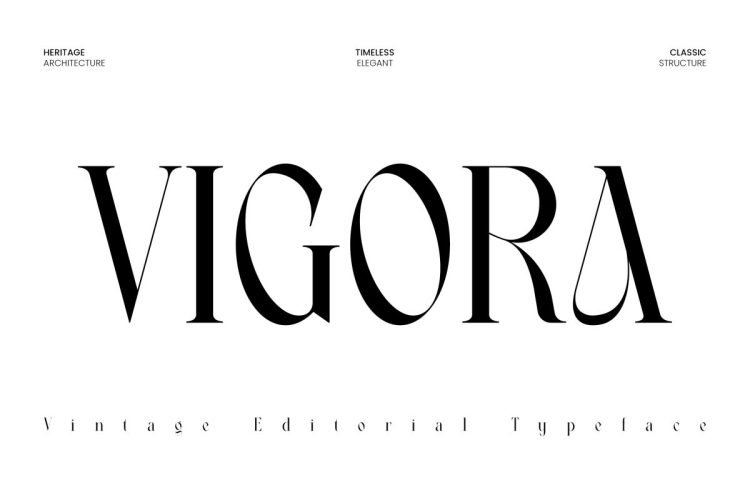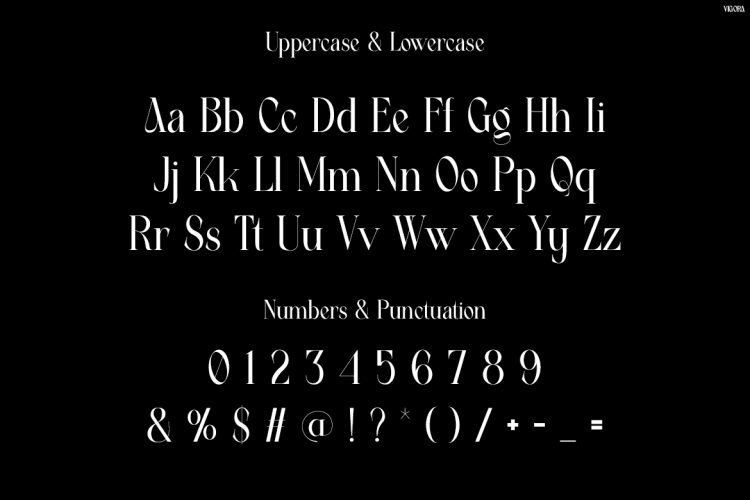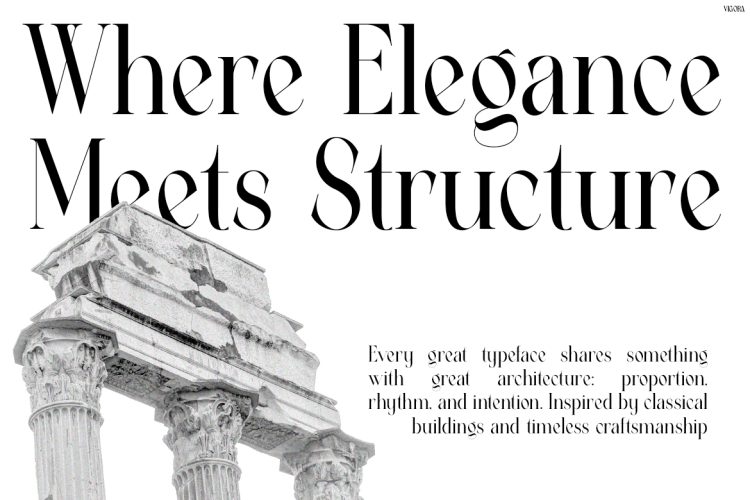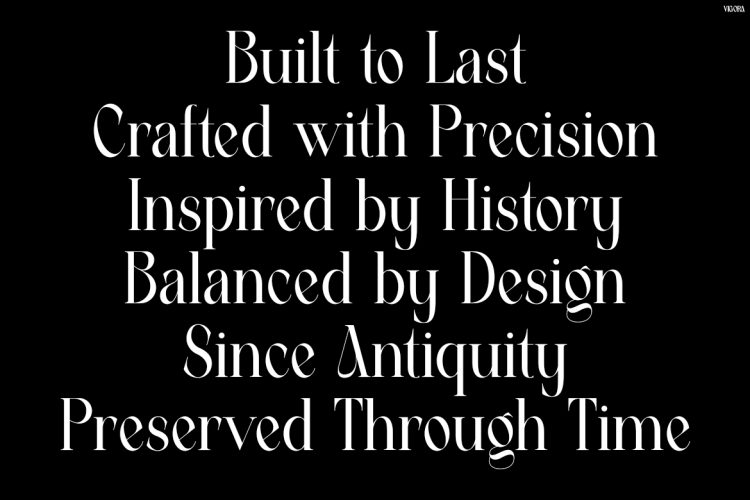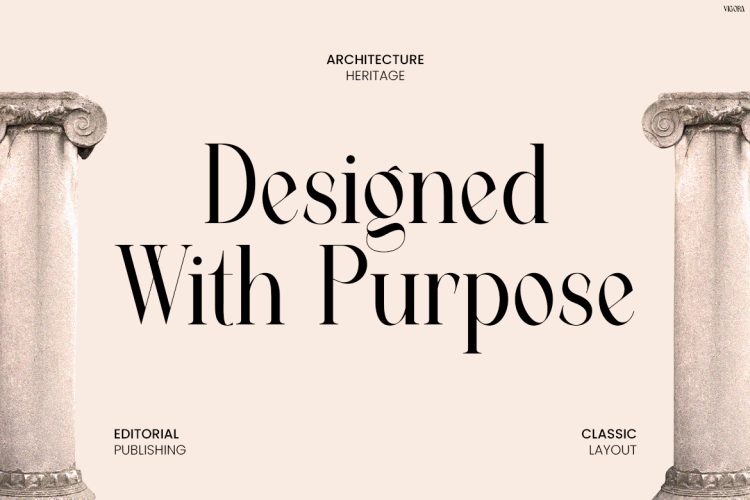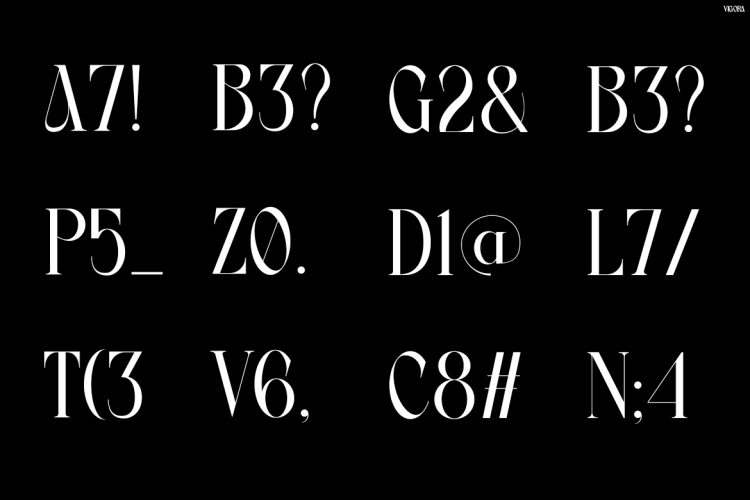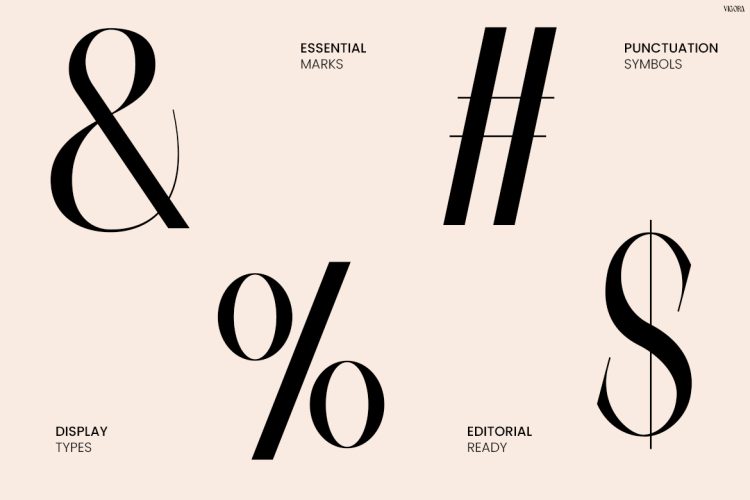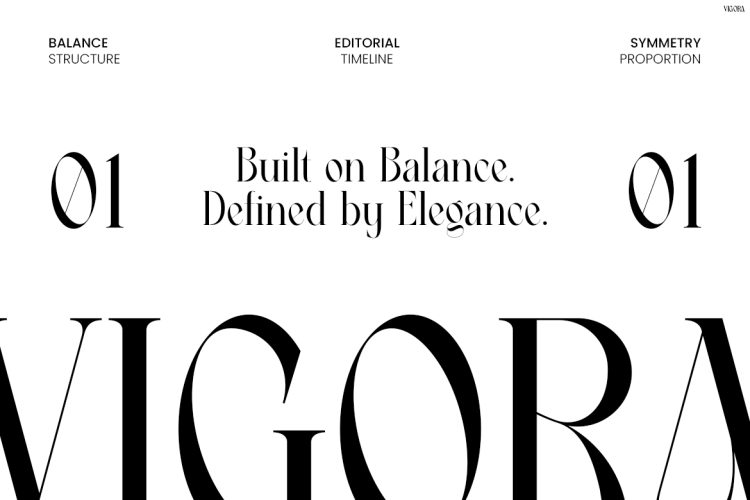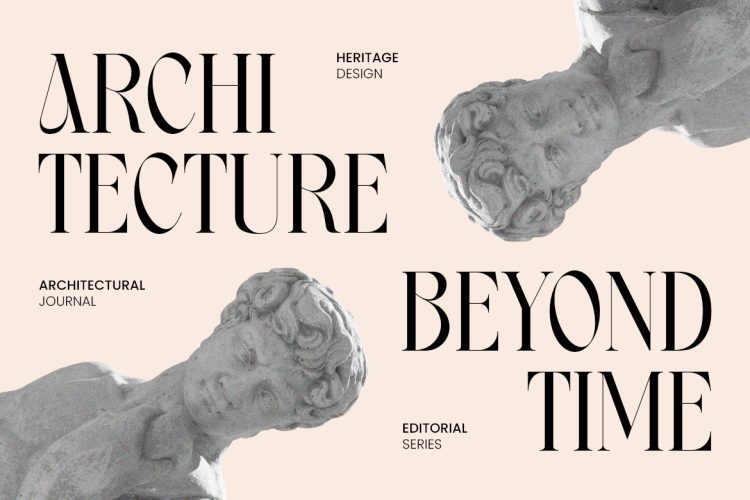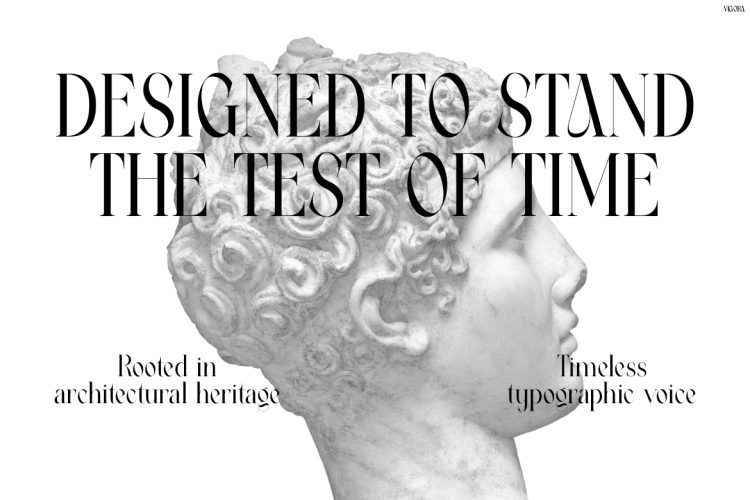
Instagram Font Vigora โ Timeless Editorial Serif for Luxury Branding, Fashion & Architecture
Instagram Font Vigora is a sophisticated high-contrast serif that blends classical elegance with contemporary minimalism. From the very first glance, its refined letterforms and graceful proportions create a luxurious editorial aesthetic. Moreover, the dramatic contrast between thick and thin strokes adds depth, elegance, and visual impact. As a result, every headline instantly feels premium, artistic, and unforgettable. At the same time, its clean structure ensures exceptional readability across both digital and print media. Furthermore, Vigora transforms simple layouts into refined compositions, making it an excellent choice for brands that value timeless beauty and modern sophistication.
Why You’ll Love It
Instagram Font Vigora is designed for creators who appreciate elegant typography with lasting appeal. Not only does it elevate logos and headlines, but it also creates a polished visual identity for luxury brands. In addition, its editorial-inspired style works beautifully for fashion magazines, premium packaging, beauty branding, jewelry collections, architecture portfolios, wedding stationery, website headers, and Instagram content. Likewise, its minimalist character complements clean layouts without overpowering the design. Meanwhile, its refined details enhance every composition with confidence and style. Most importantly, Vigora helps your brand communicate exclusivity, professionalism, and elegance.
Instagram Font Vigora Perfect For
- Luxury fashion brands
- Editorial magazines and lookbooks
- Beauty and skincare packaging
- Jewelry and perfume branding
- Architecture and interior design studios
- Wedding invitations and stationery
- Premium logos and visual identity
- Instagram posts and lifestyle content
Create Timeless Luxury
If you want your designs to look elegant and unforgettable, Instagram Font Vigora is the perfect choice. Furthermore, its refined serif style instantly enhances visual appeal. At the same time, its versatility allows you to create premium branding across multiple platforms. Consequently, your projects become more sophisticated and memorable. Finally, choose Vigora today and give every design the timeless elegance it deserves.